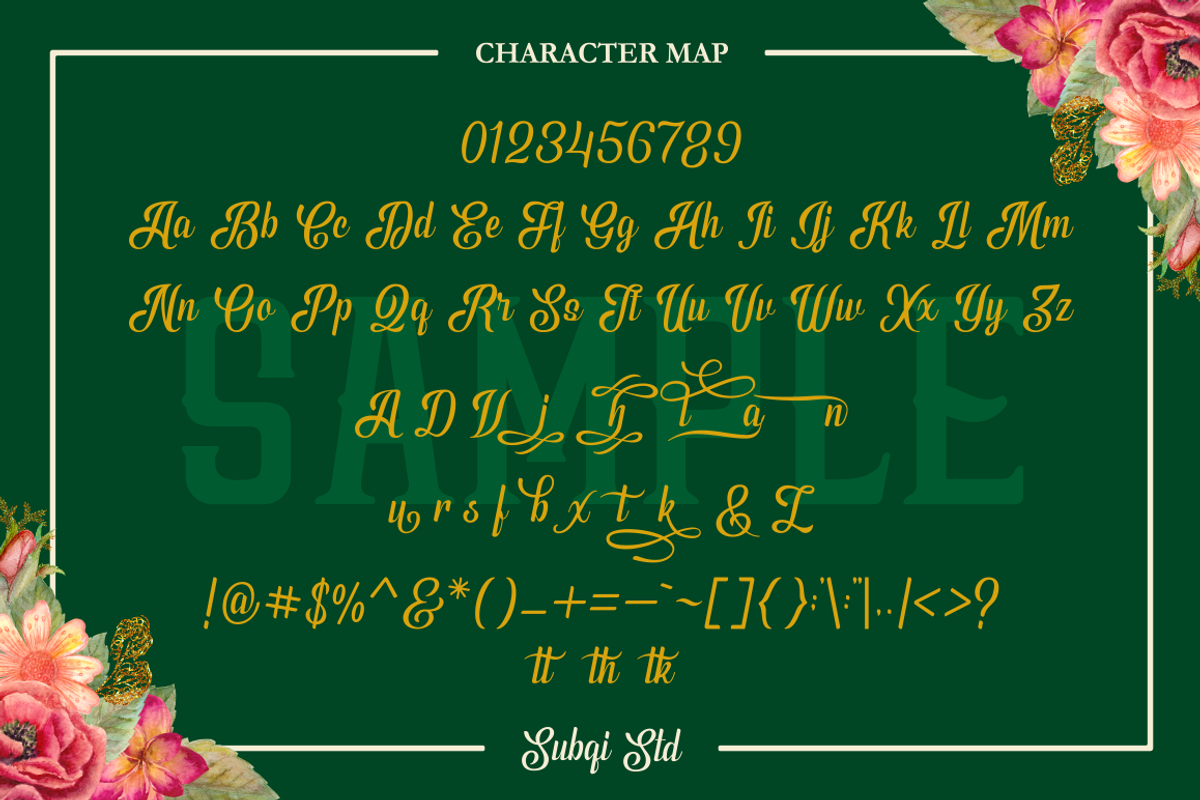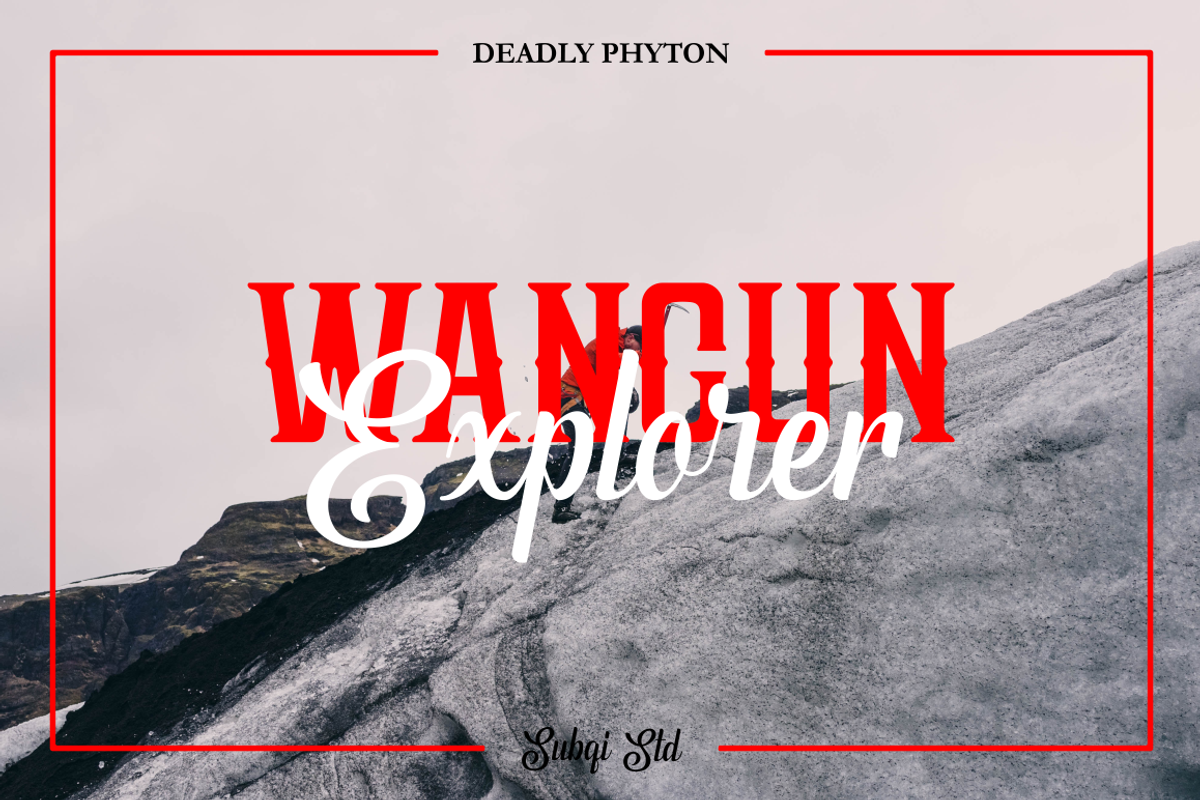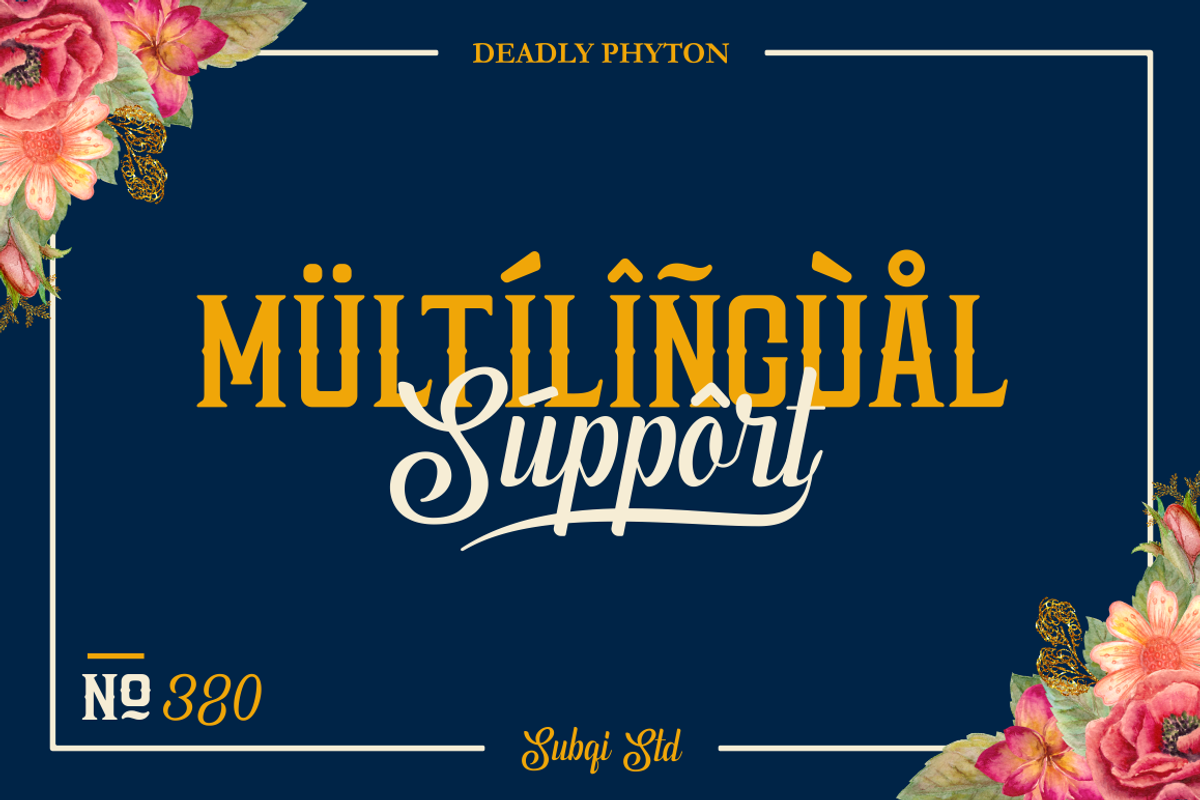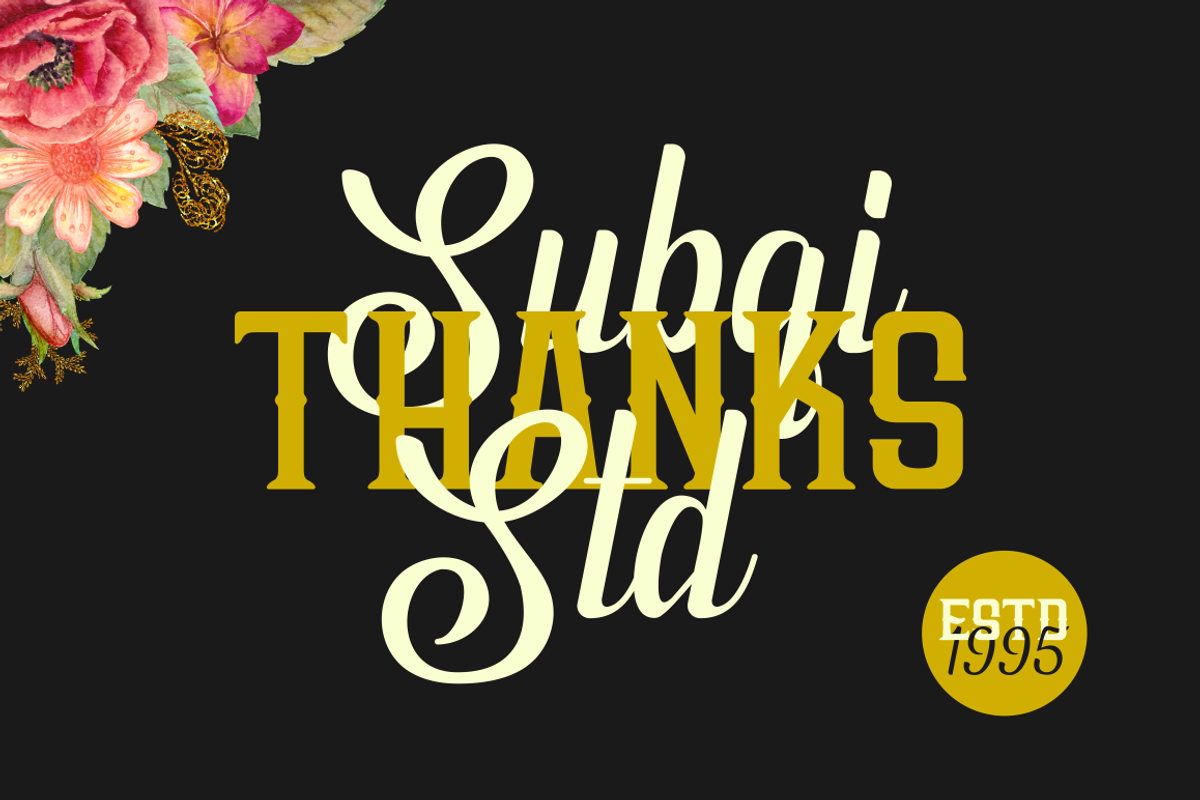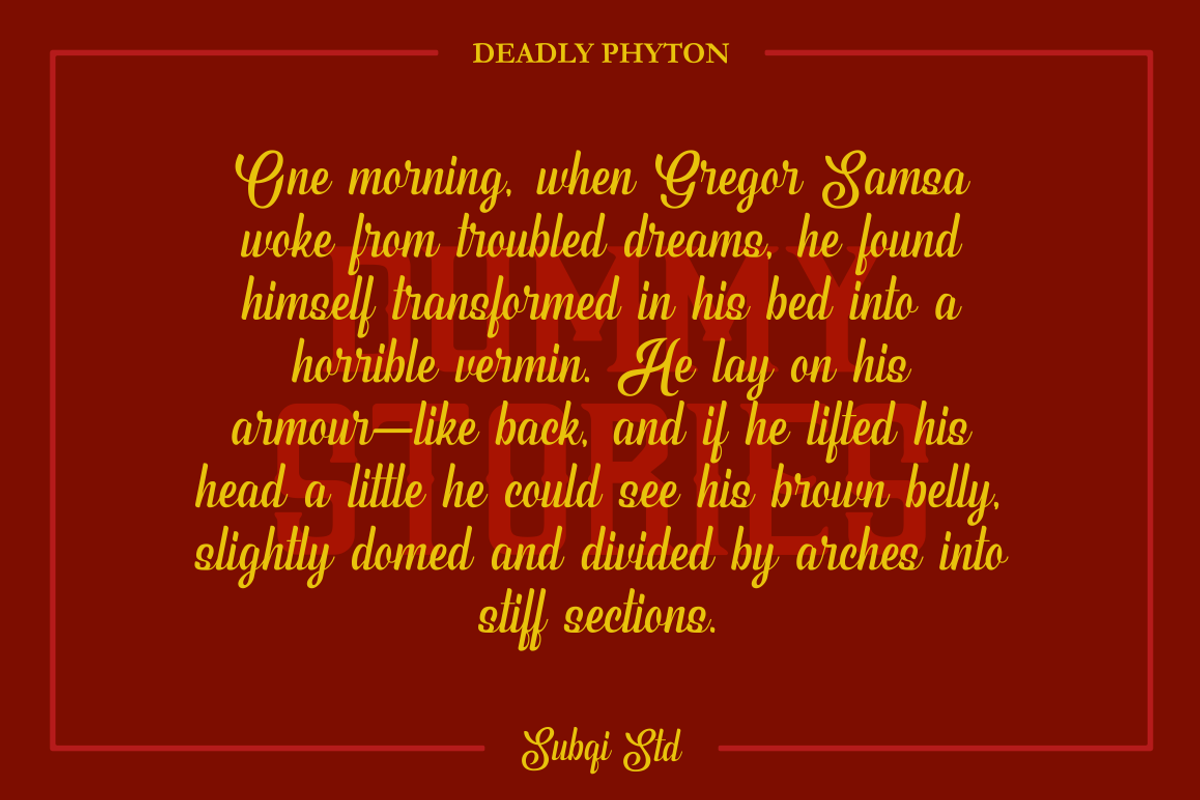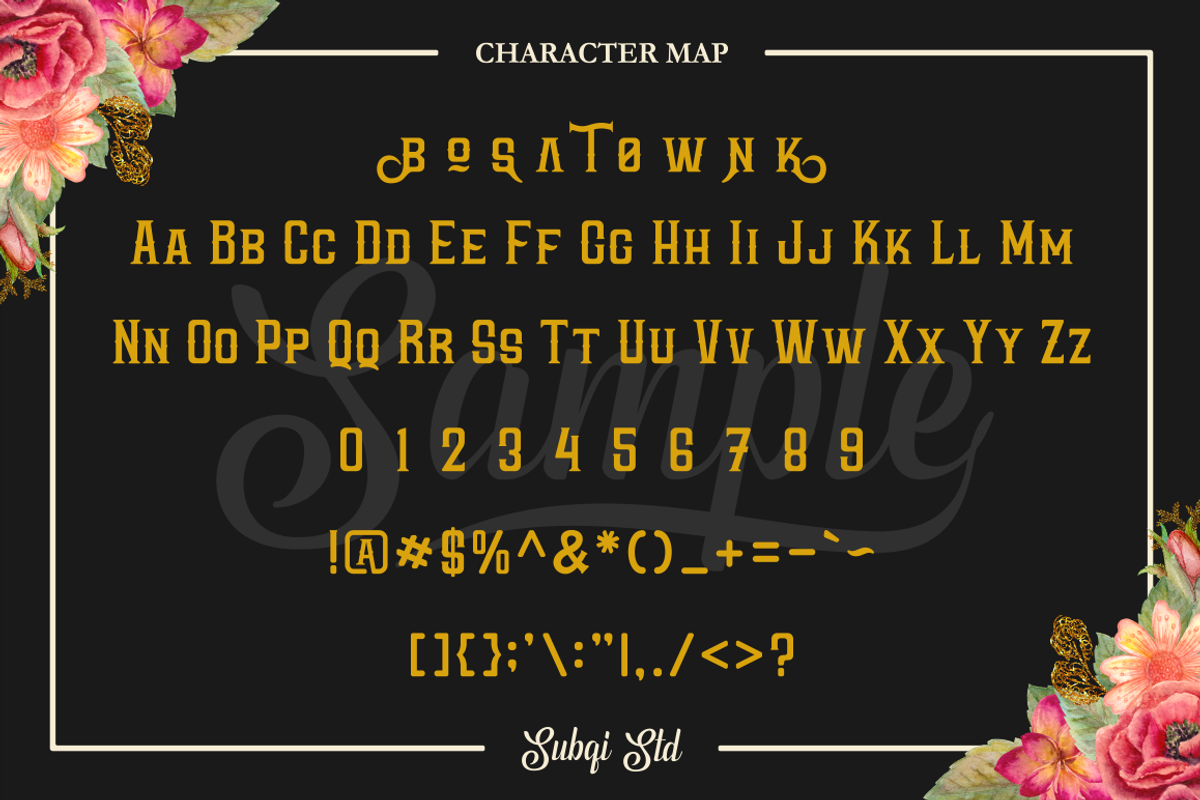
Deadly Phyton Combo
Proudly Present our new product. Deadly Phyton COMBO ! A perfect combination between calligraphy script and serif. Work well on both vintage and modern design as you can see at our preview images sample.
- Standard Character ( Uppercase, Lowercase, Numeric, Punctuation )
- Multilingual Accent Support
- Discretionary Ligatures
- Alternates Character